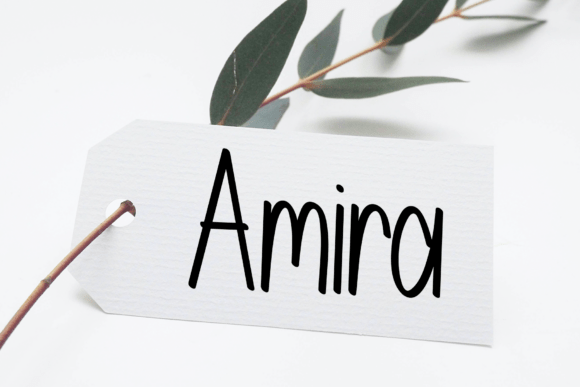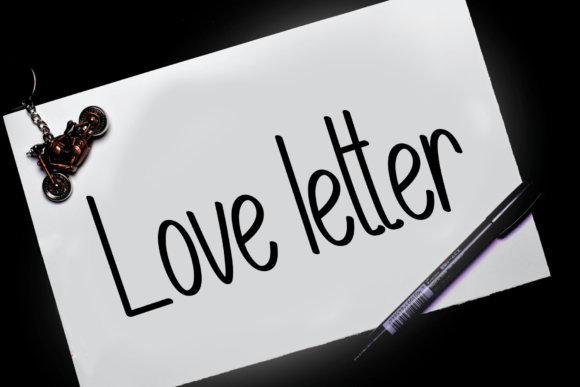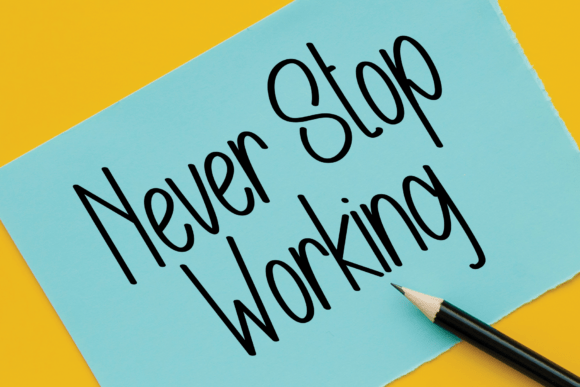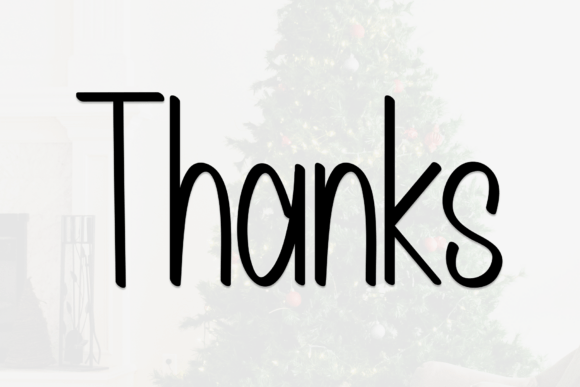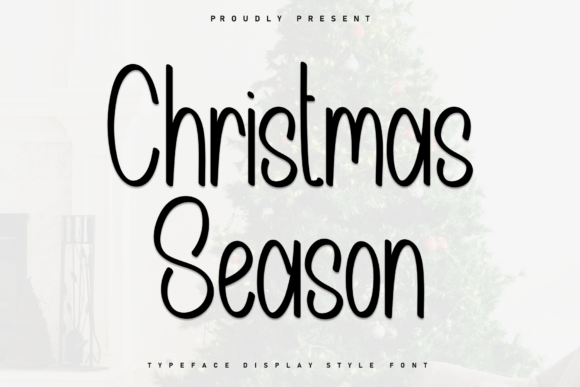
Christmas Season Font: A Charming Handwritten Font for Your Holiday Designs
The Christmas season is upon us, and with it comes the joy of creating festive designs that capture the spirit of the holiday. If you’re a designer or crafter looking for the perfect font to add a touch of warmth and personality to your projects, look no further than the Christmas Season font. This charming handwritten font is filled with a sense of heartfelt perfection, making it ideal for a variety of design applications.
The Characteristics of Christmas Season Font
Christmas Season font is a beautifully crafted handwritten font that boasts smooth strokes and organic lines. Its relaxed atmosphere evokes a sense of comfort and coziness, perfect for creating designs that feel like a warm hug. The font’s charming imperfections and subtle variations in line width give it a human touch, making it perfect for designs that require a personal and intimate feel.
Uses for Christmas Season Font
Christmas Season font is incredibly versatile and can be used for a wide range of design projects. Here are just a few ideas to get you started:
- Branding: Use Christmas Season font to create a unique and memorable brand identity for your holiday-themed business or product.
- Invitations: Add a touch of warmth and personality to your holiday invitations, whether they’re for parties, weddings, or other special events.
- Social Media Graphics: Create eye-catching social media graphics that showcase your holiday designs and promotions.
- Packaging: Use Christmas Season font to add a festive touch to your product packaging, making it perfect for holiday gift-giving.
- Stationery: Create beautiful holiday stationery, including greeting cards, gift tags, and letterheads.
Why Choose Christmas Season Font?
So why choose Christmas Season font for your holiday designs? Here are just a few reasons:
- Unique and Memorable: Christmas Season font is a one-of-a-kind font that will help your designs stand out from the crowd.
- Easy to Read: The font’s smooth strokes and clear lines make it easy to read, even at small sizes.
- Versatile: Christmas Season font can be used for a wide range of design projects, from branding to social media graphics.
- High-Quality: The font is carefully crafted to ensure high-quality output, making it perfect for professional designs.
Tips for Using Christmas Season Font
Here are a few tips for getting the most out of Christmas Season font:
- Pair with Other Fonts: Experiment with pairing Christmas Season font with other fonts to create a unique and visually appealing design.
- Use Color Wisely: Choose colors that complement the font and add to the overall festive atmosphere of your design.
- Experiment with Sizes: Don’t be afraid to experiment with different font sizes to create visual interest and hierarchy in your design.
Christmas Season font is a charming and versatile font that’s perfect for adding a touch of warmth and personality to your holiday designs. With its smooth strokes, organic lines, and relaxed atmosphere, it’s ideal for a wide range of design projects, from branding to social media graphics. Whether you’re a designer or crafter, Christmas Season font is sure to become a go-to font in your holiday design arsenal.